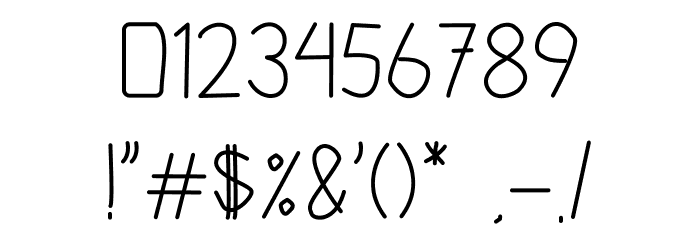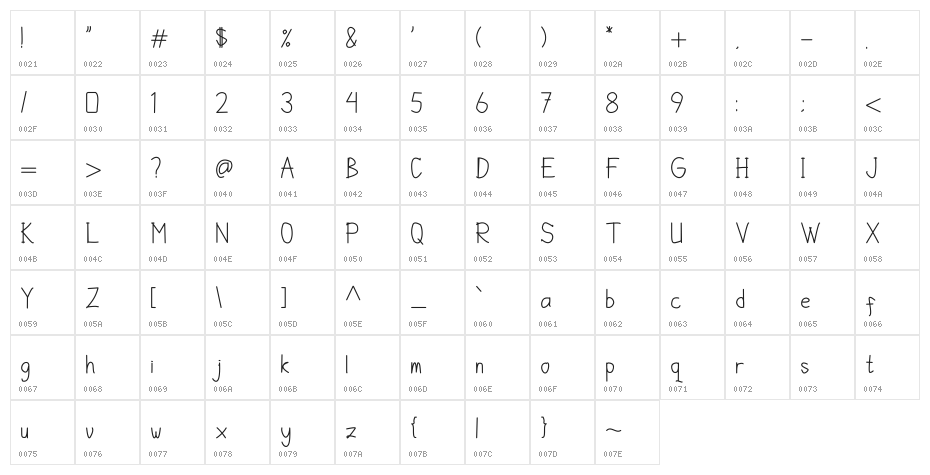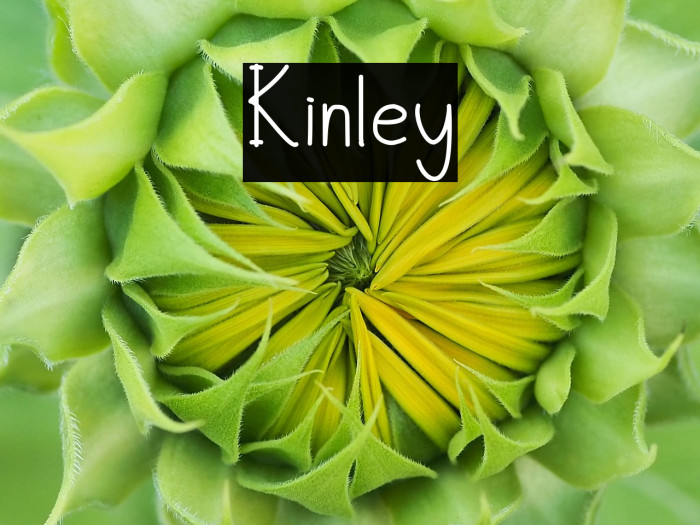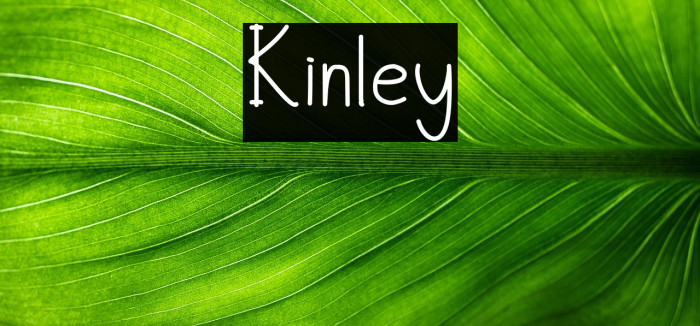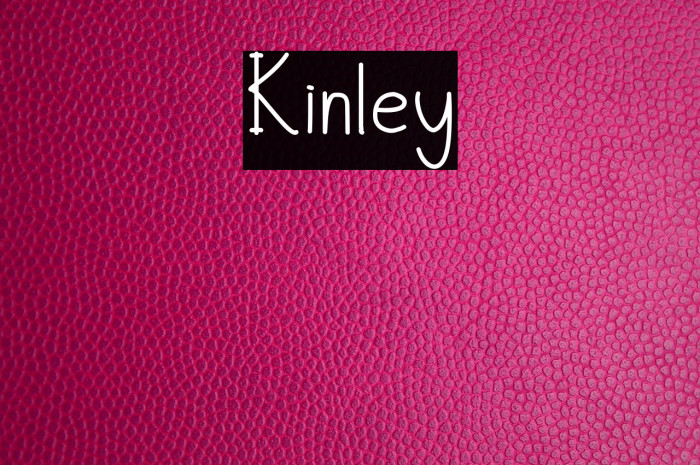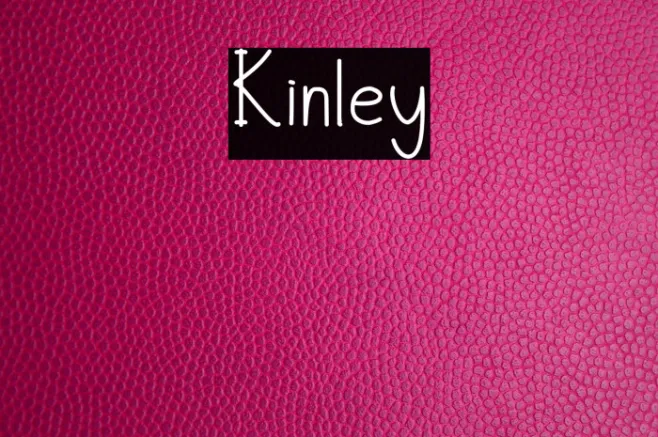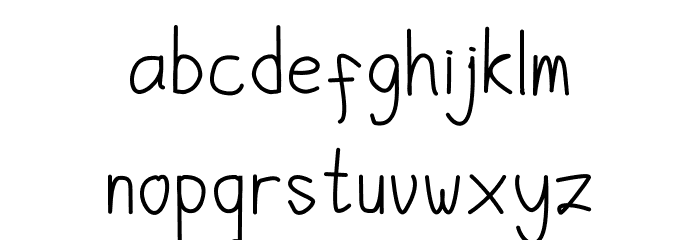
Kinley Font
Kinley Description
This font features a playful and casual handwritten style, characterized by its irregular strokes and slightly uneven baseline. The letters have a whimsical appearance, with varying stroke widths that add a dynamic feel to the text. The uppercase letters are tall and narrow, while the lowercase letters maintain a consistent height, creating a harmonious balance. The numerals are distinct and easy to read, complementing the overall informal aesthetic. Special characters are well-integrated, maintaining the font's unique personality. This font is ideal for projects that require a personal touch, such as greeting cards, invitations, or children's book illustrations.
| Proposed Projects | Ideal for greeting cards, invitations, children's books, and informal branding. |